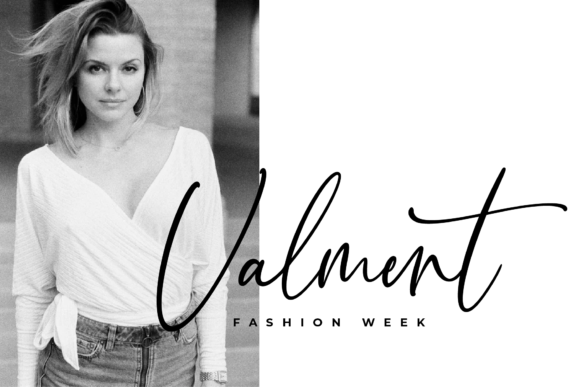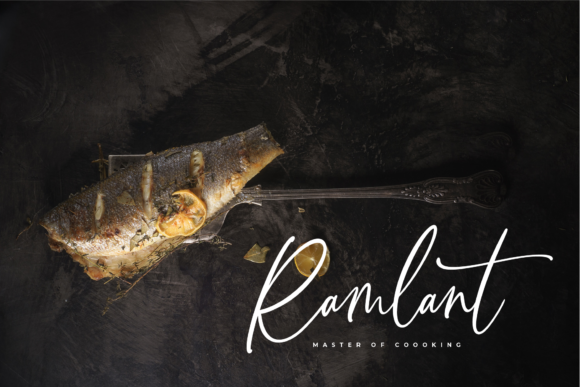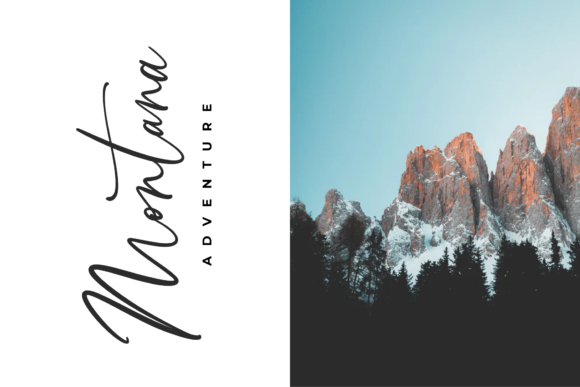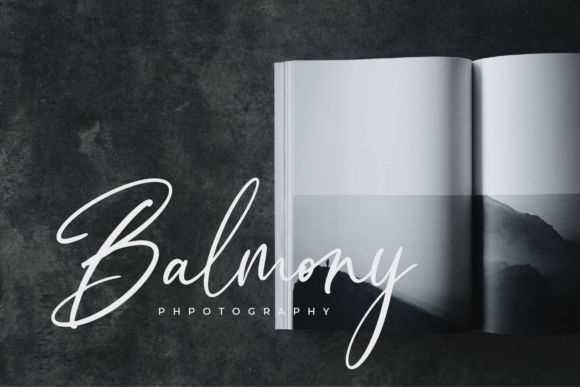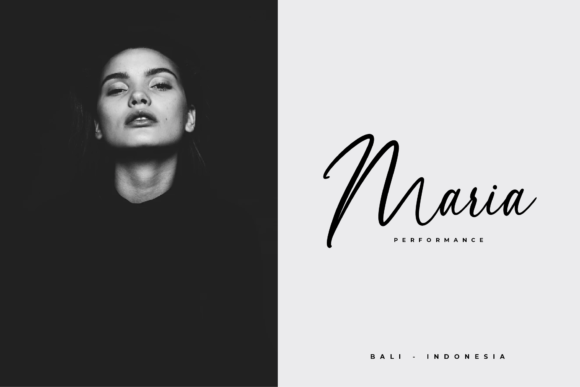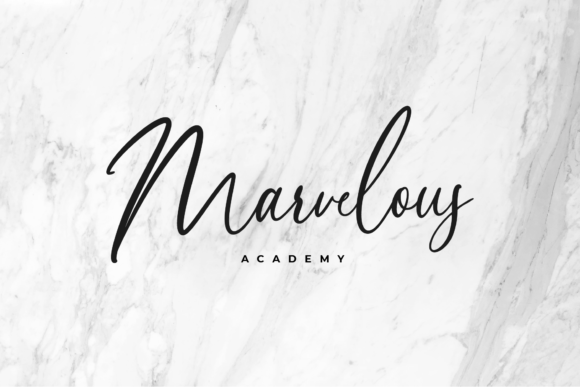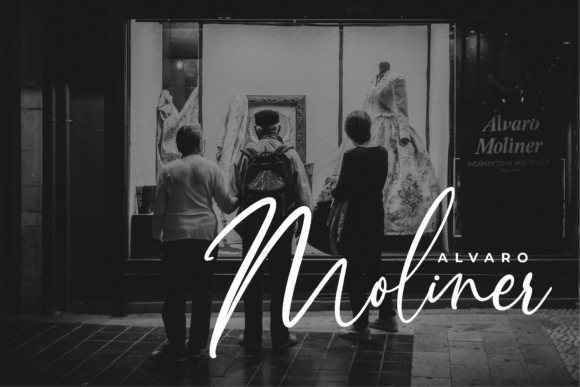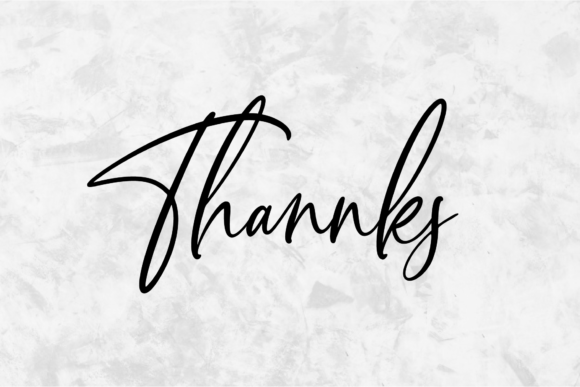
Valment Font
About Valment Font
Valment is a modern calligraphy font that is perfect for any use.
This font comes with 72 beautiful ligatures and is great for your new designs